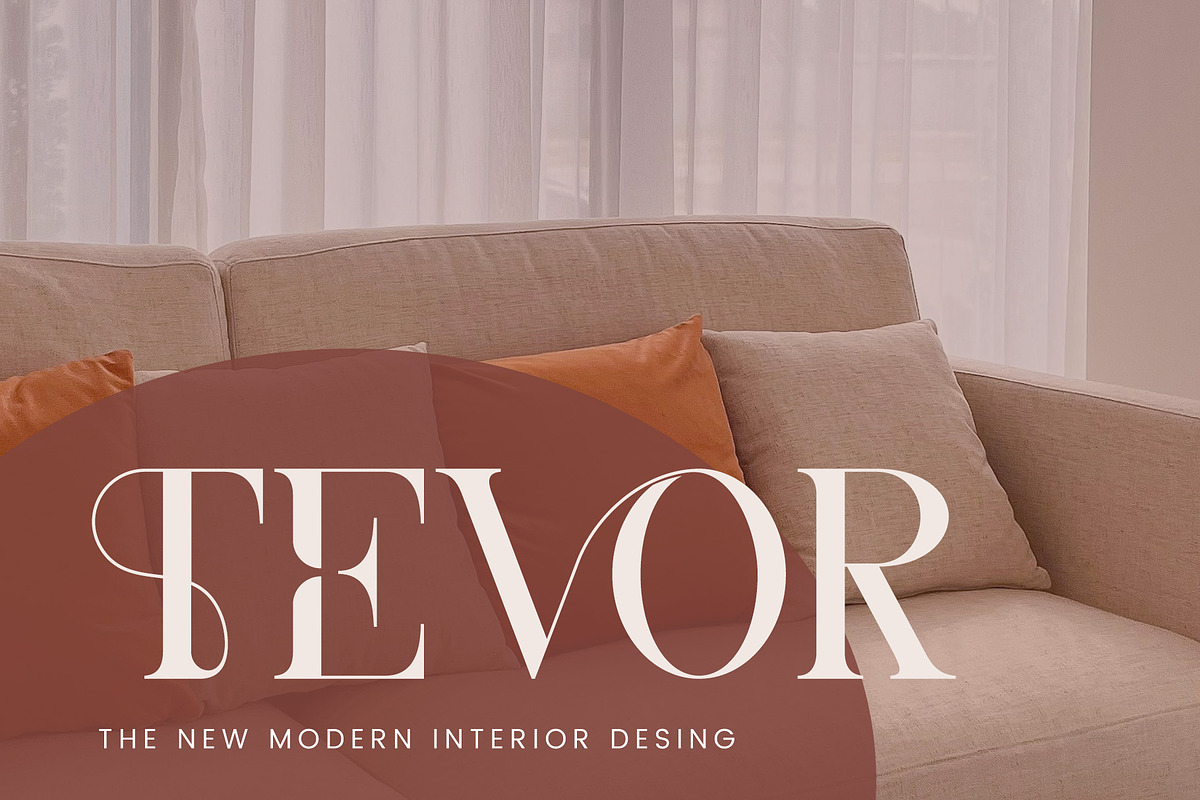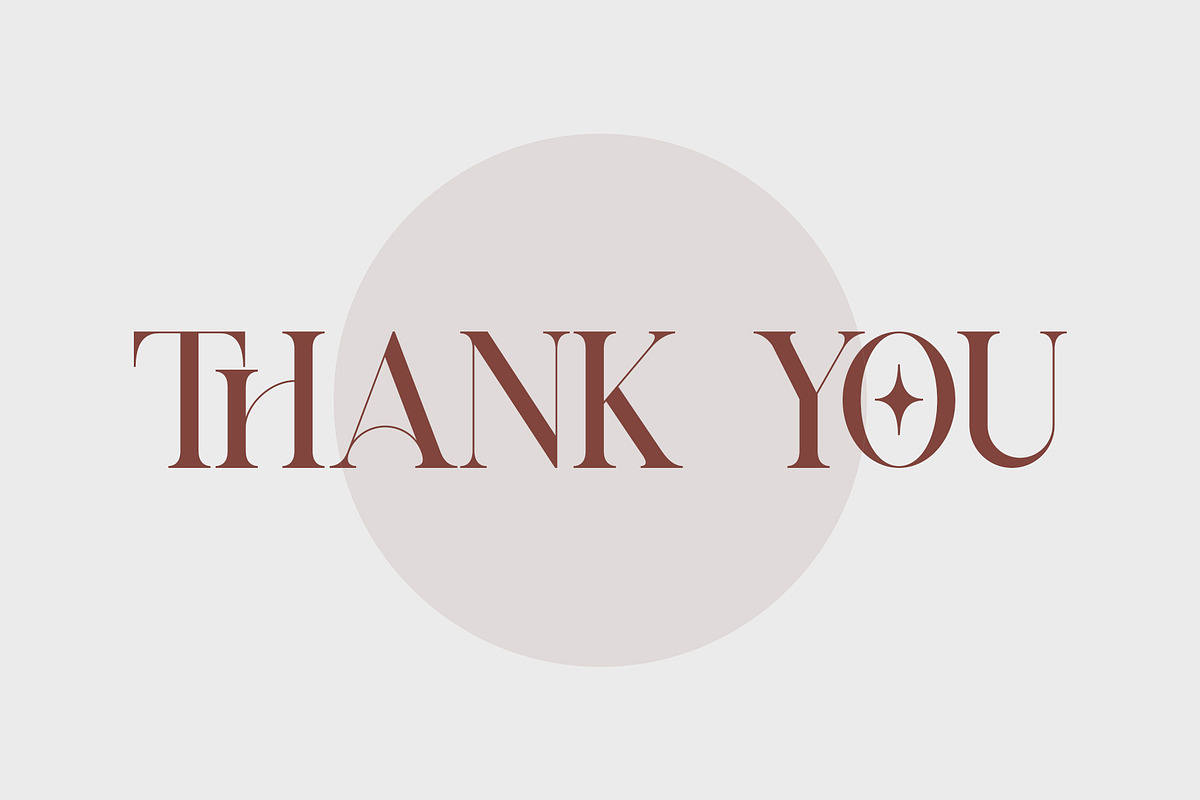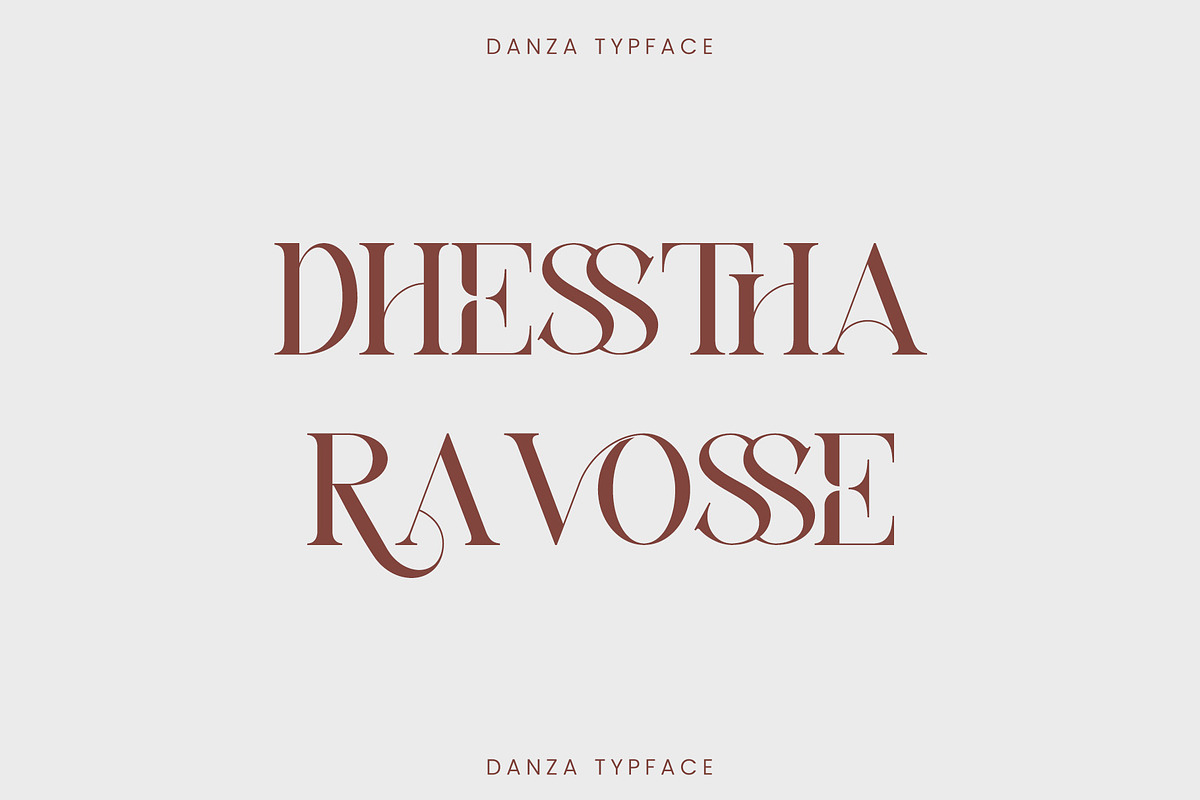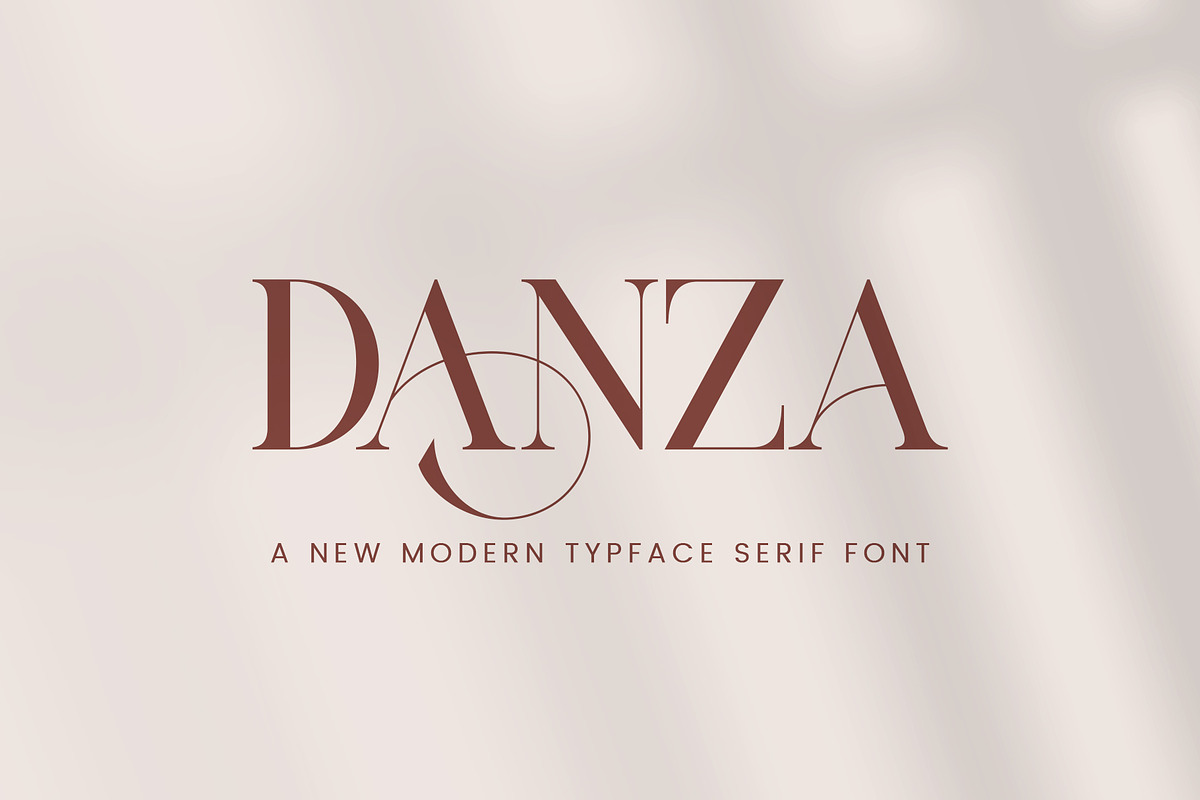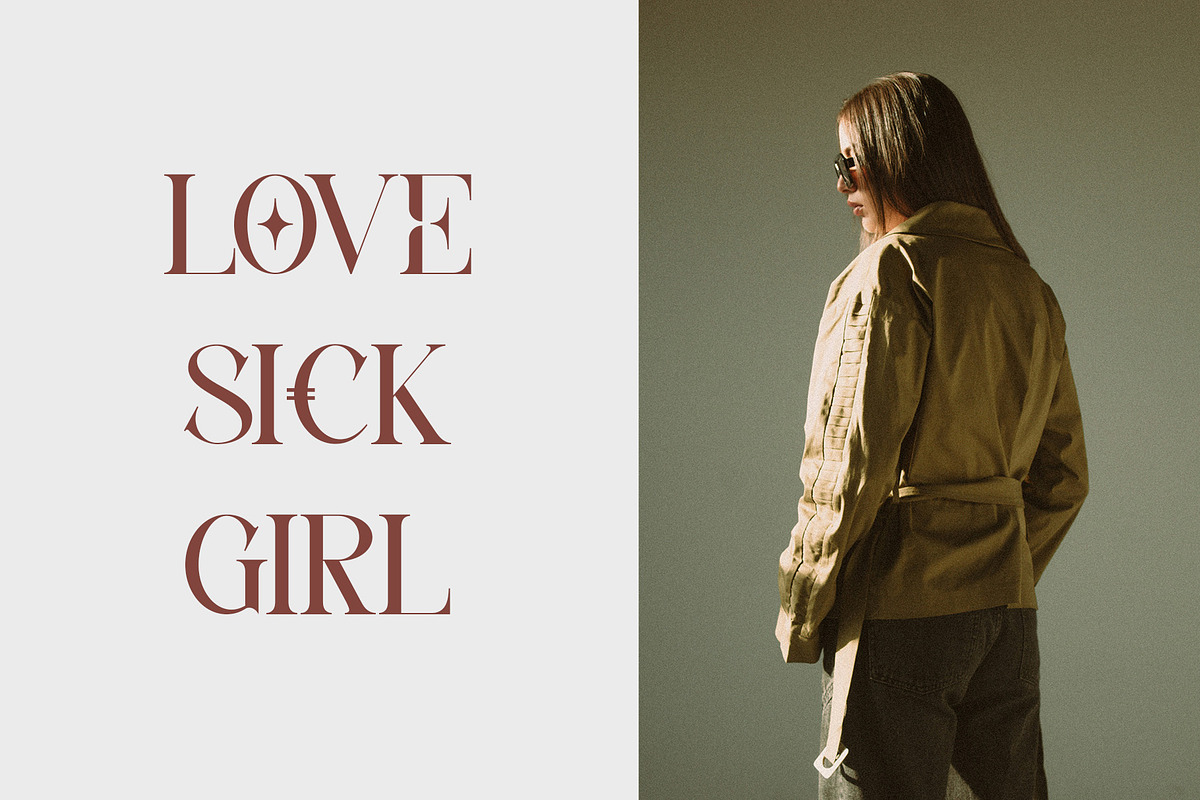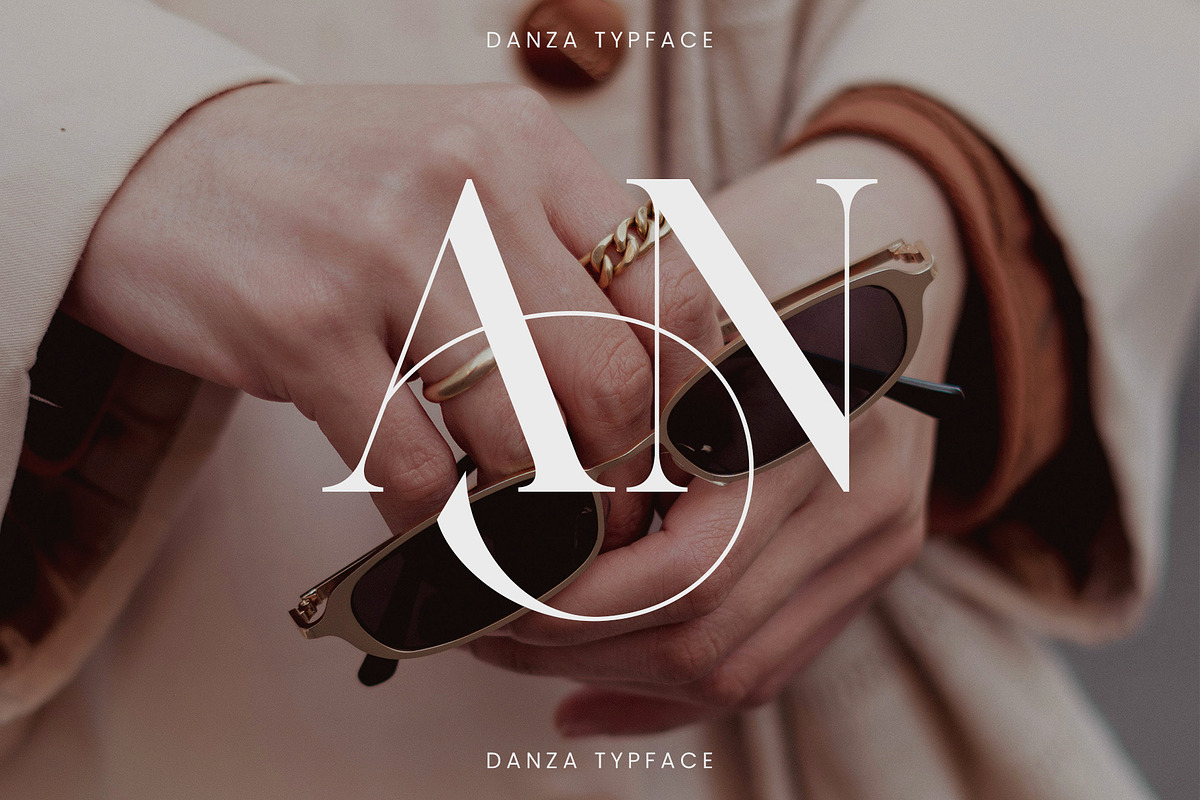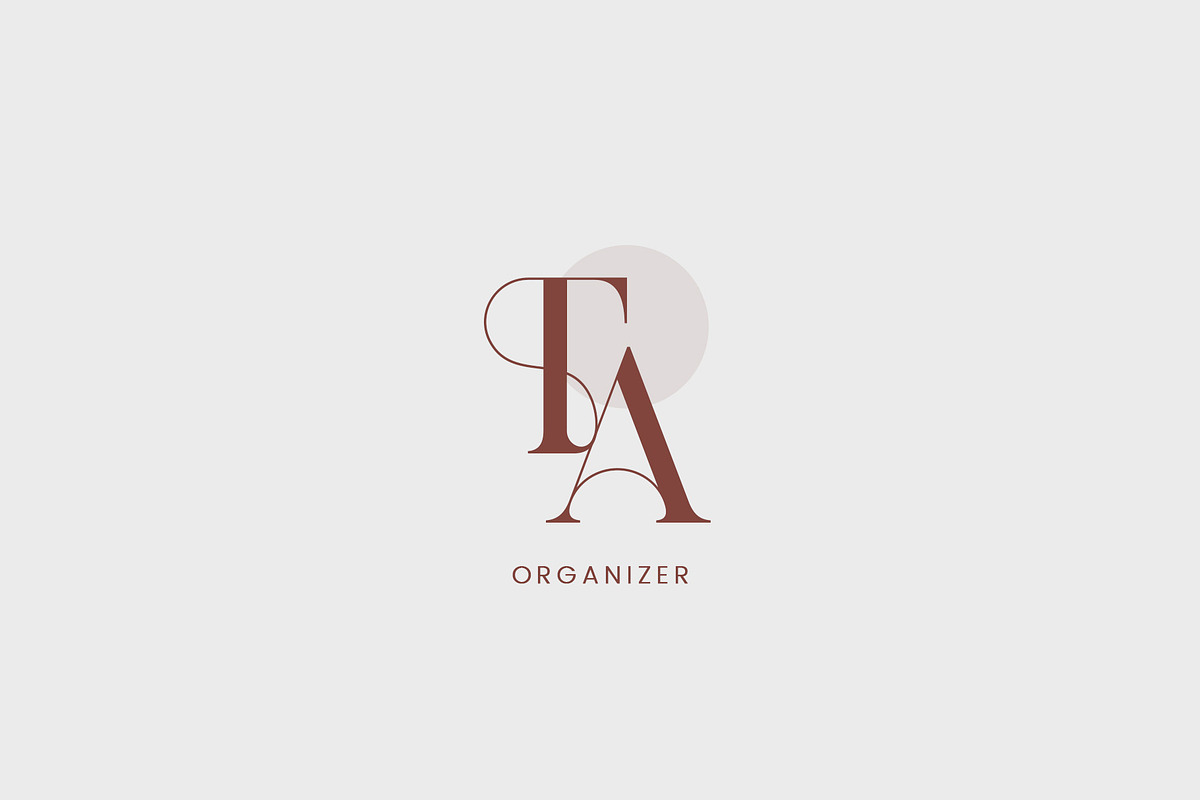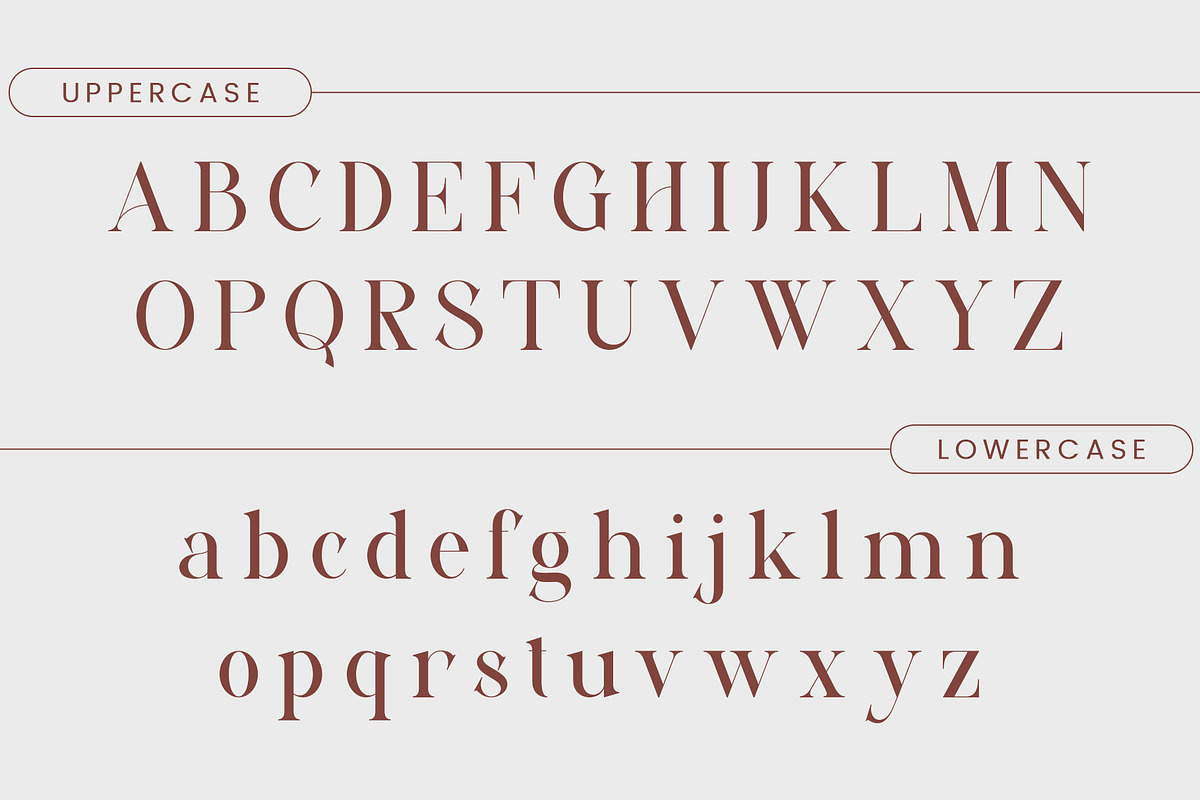
DANZA - Modern Typface Serif
DANZA - Modern Typface Serif is a font designed with a modern and minimalist style. It’s perfect for various design needs, such as logos , brochures, videos, advertising branding, posters, invitations, and More.
This font is the perfect choice to make your designs look professional and appealing.